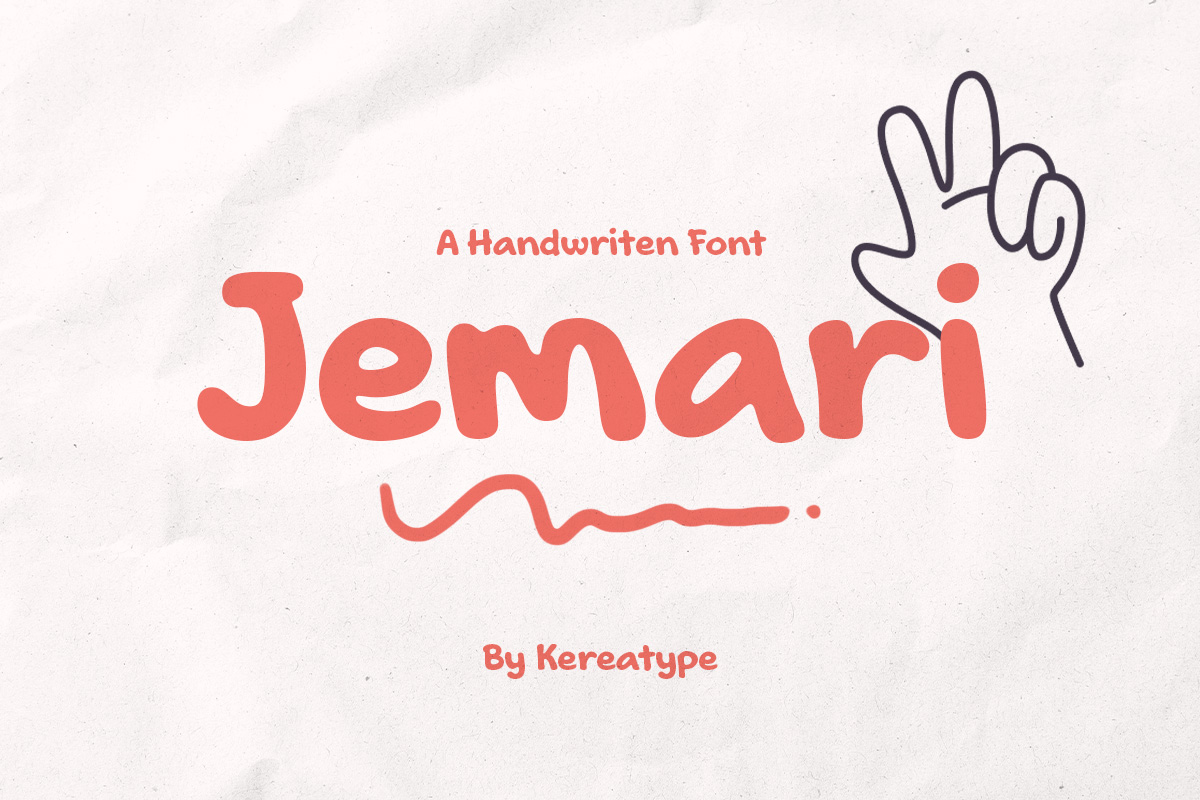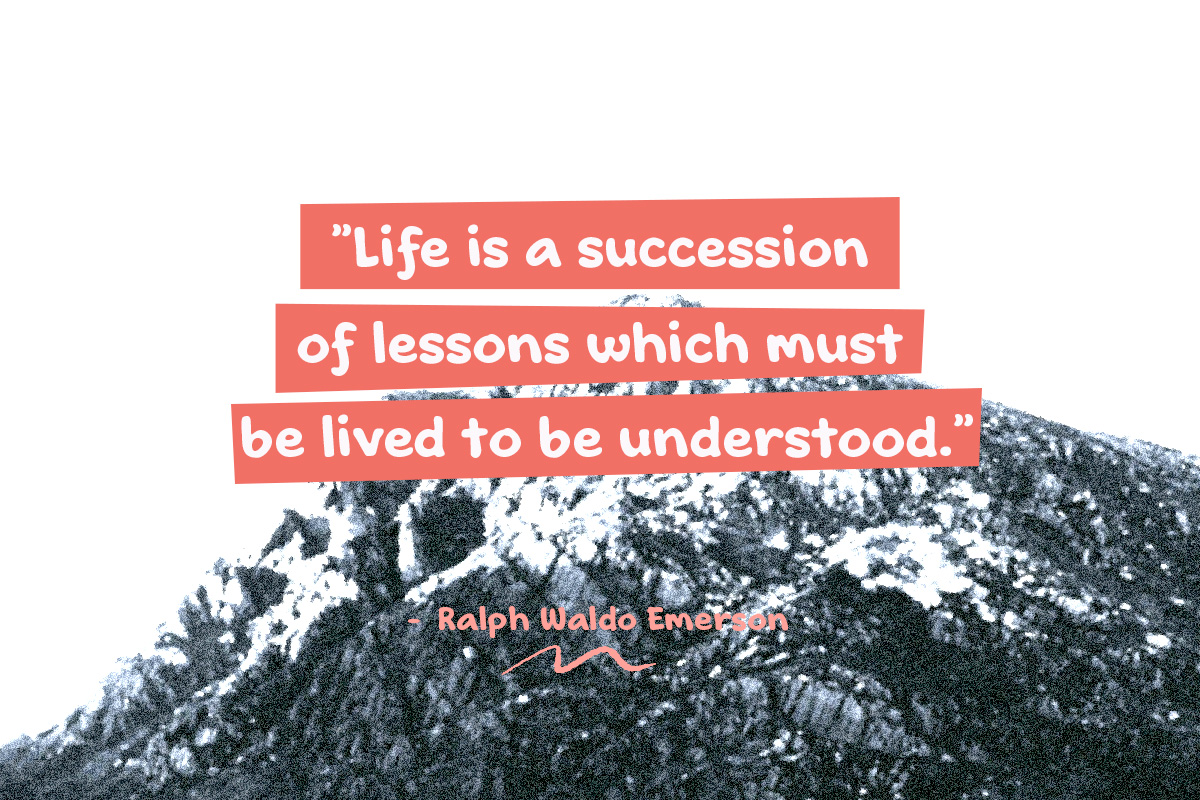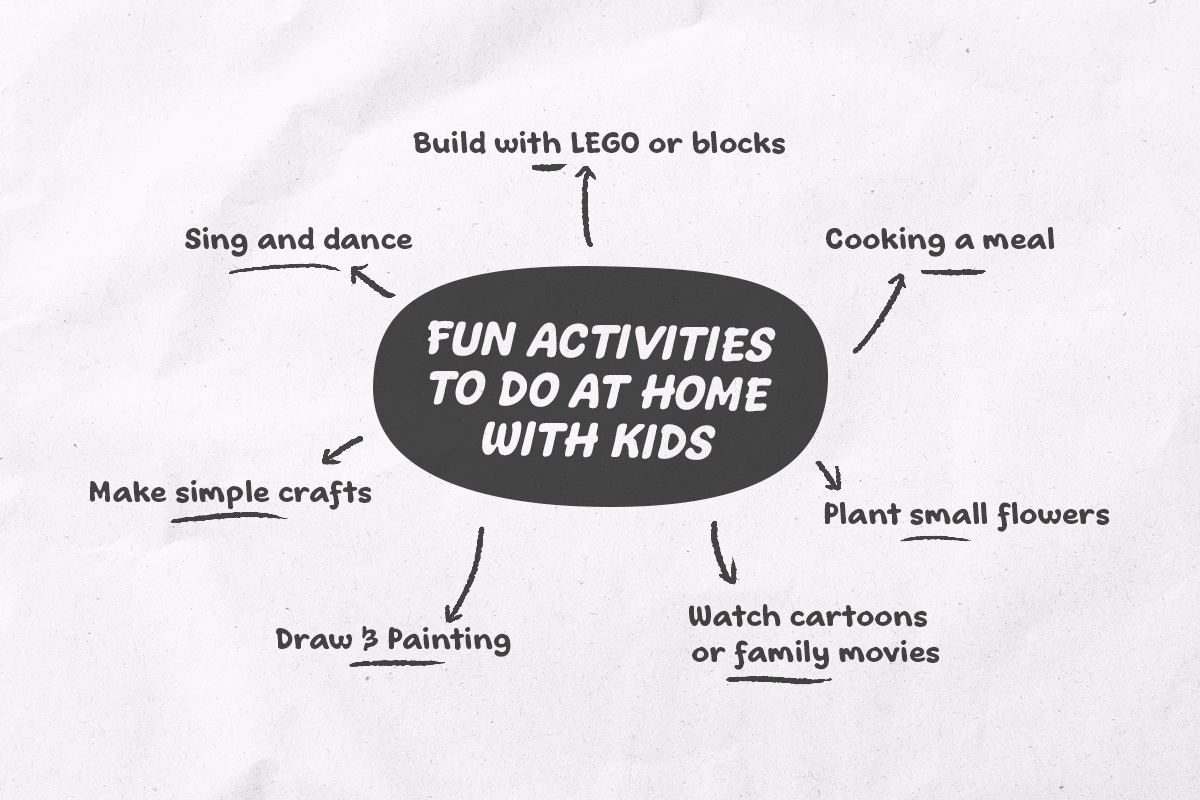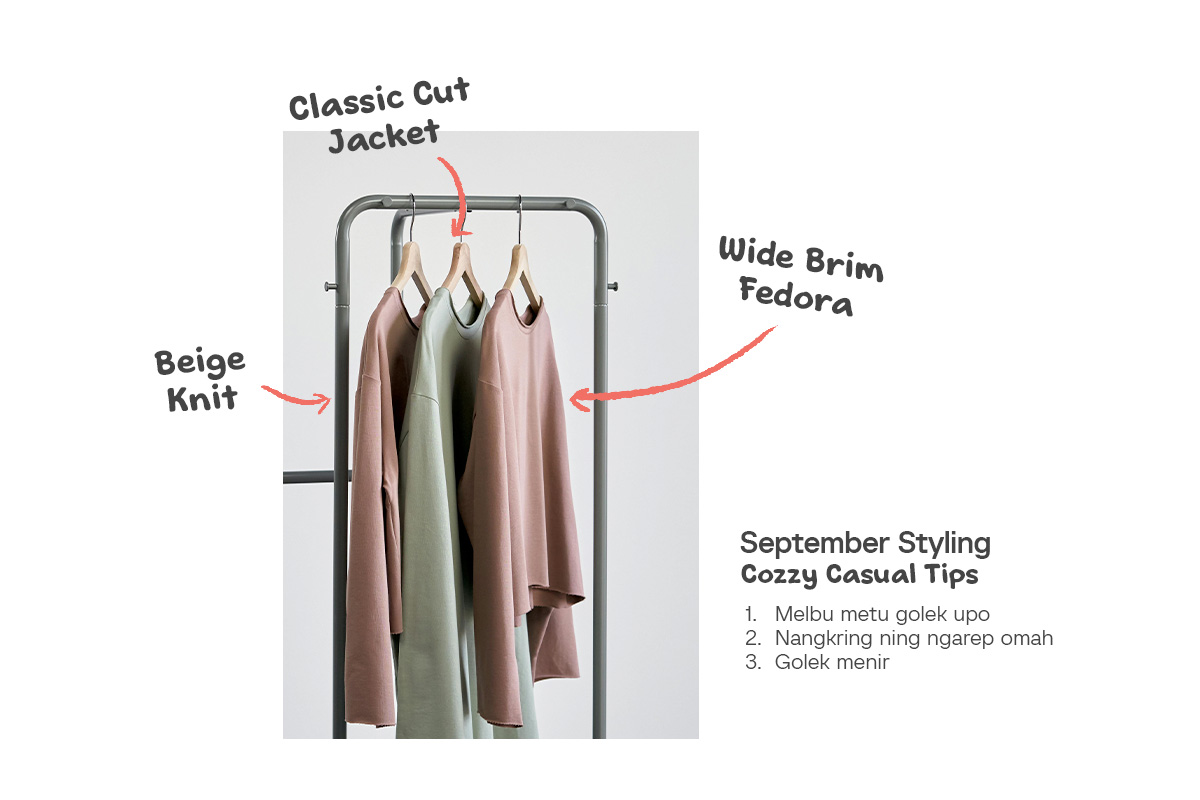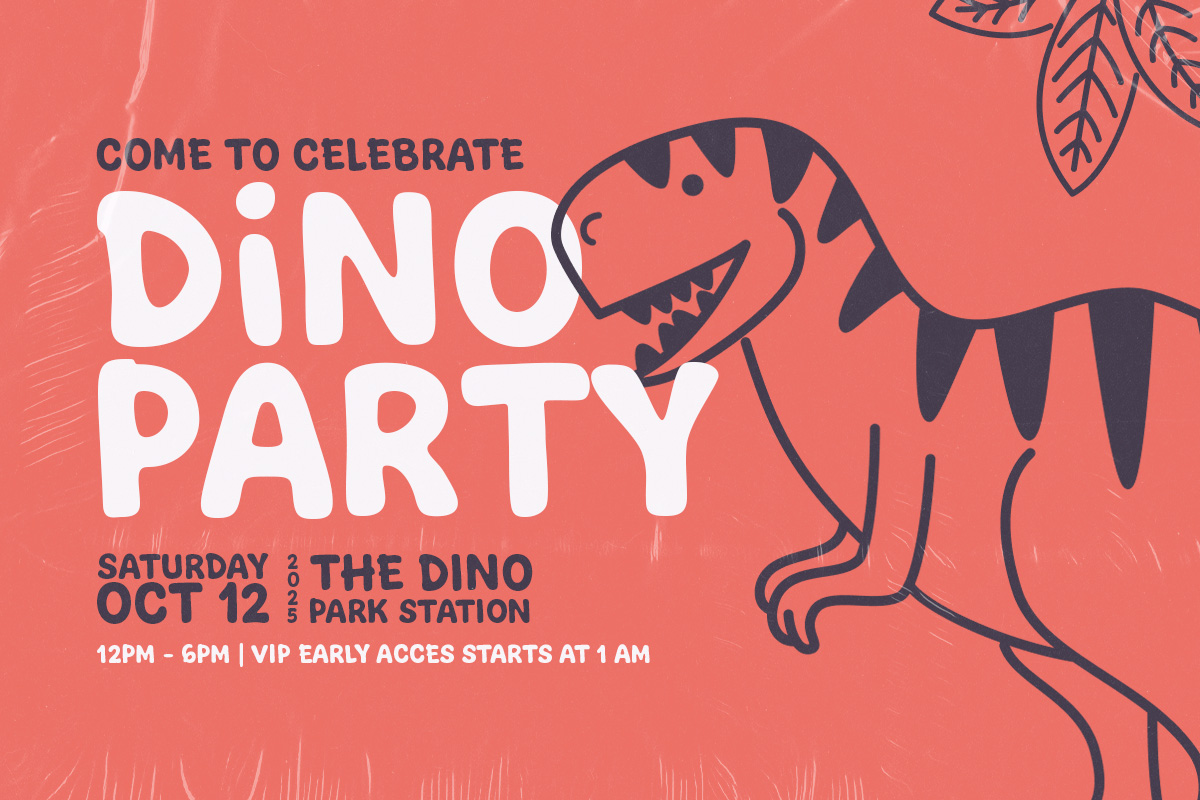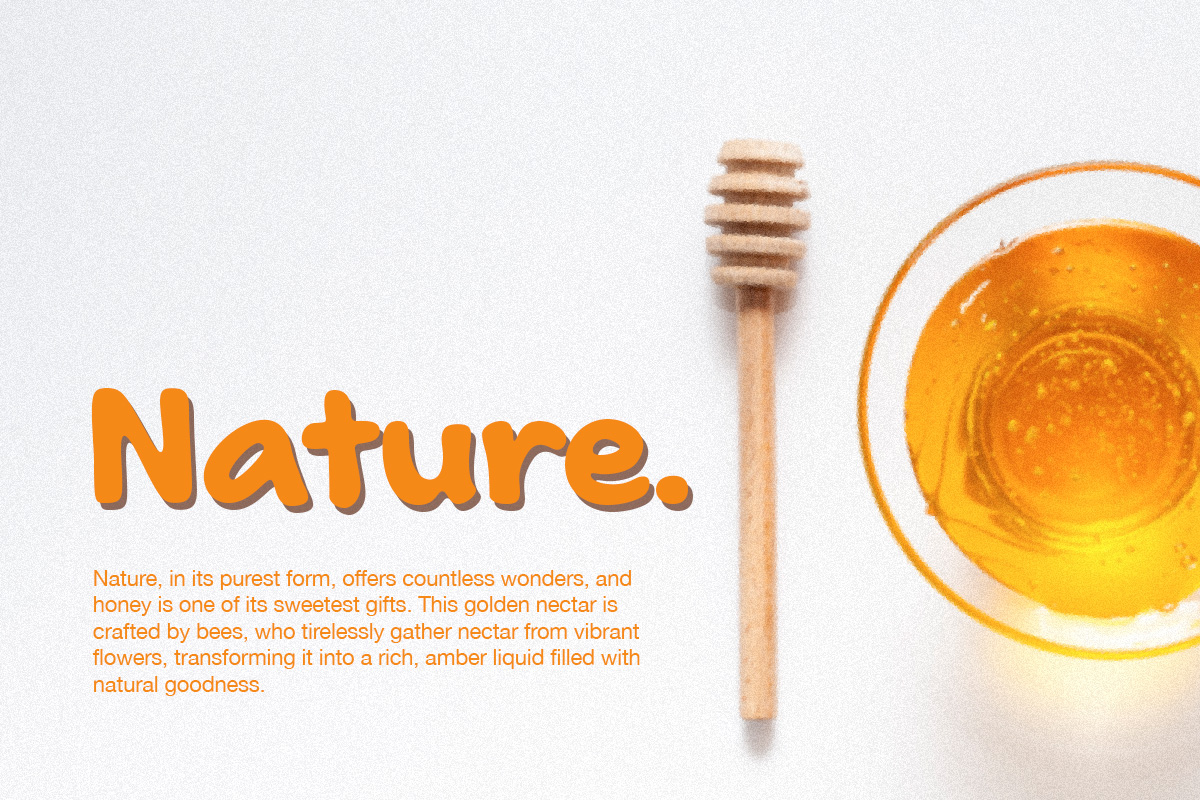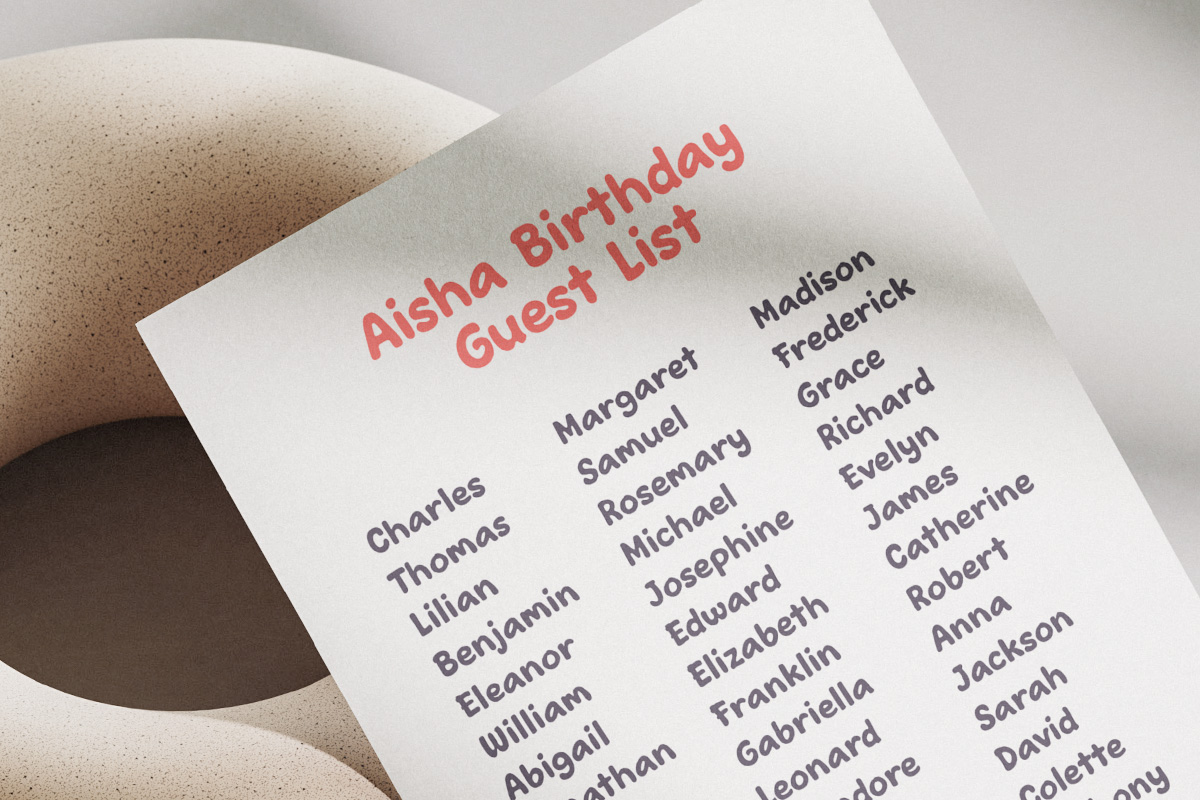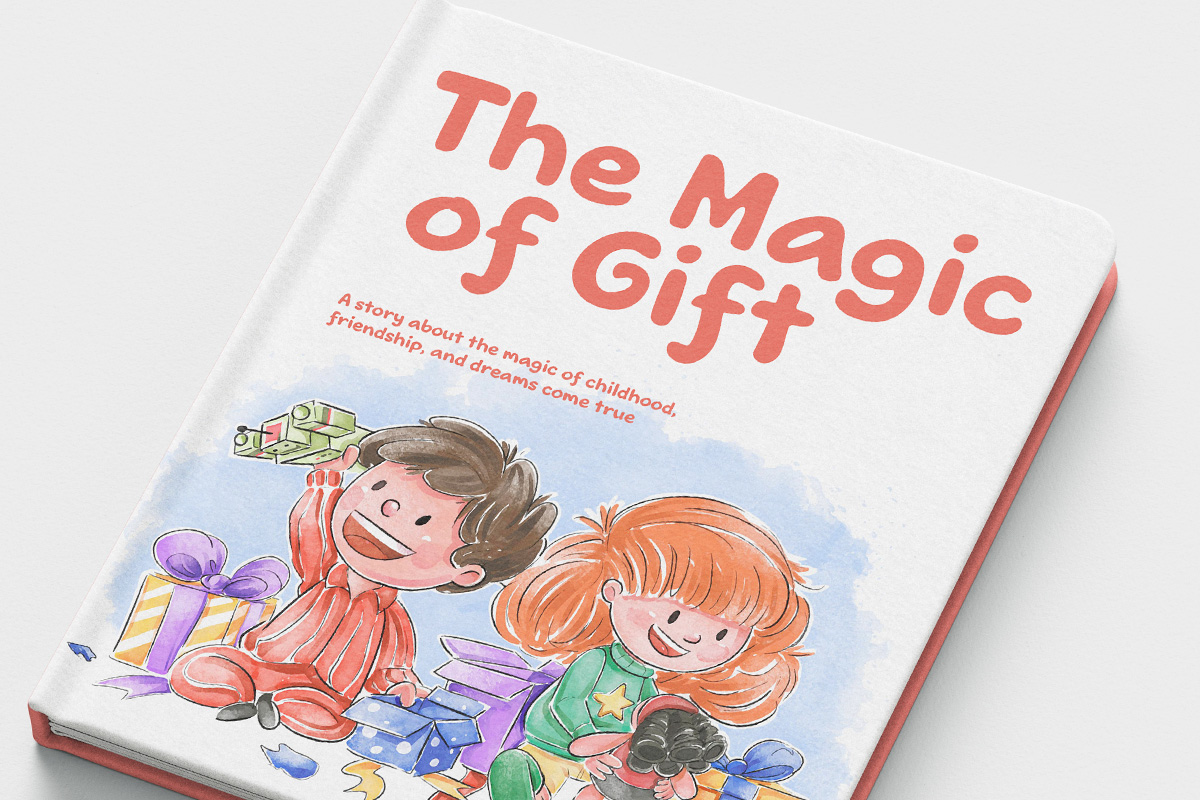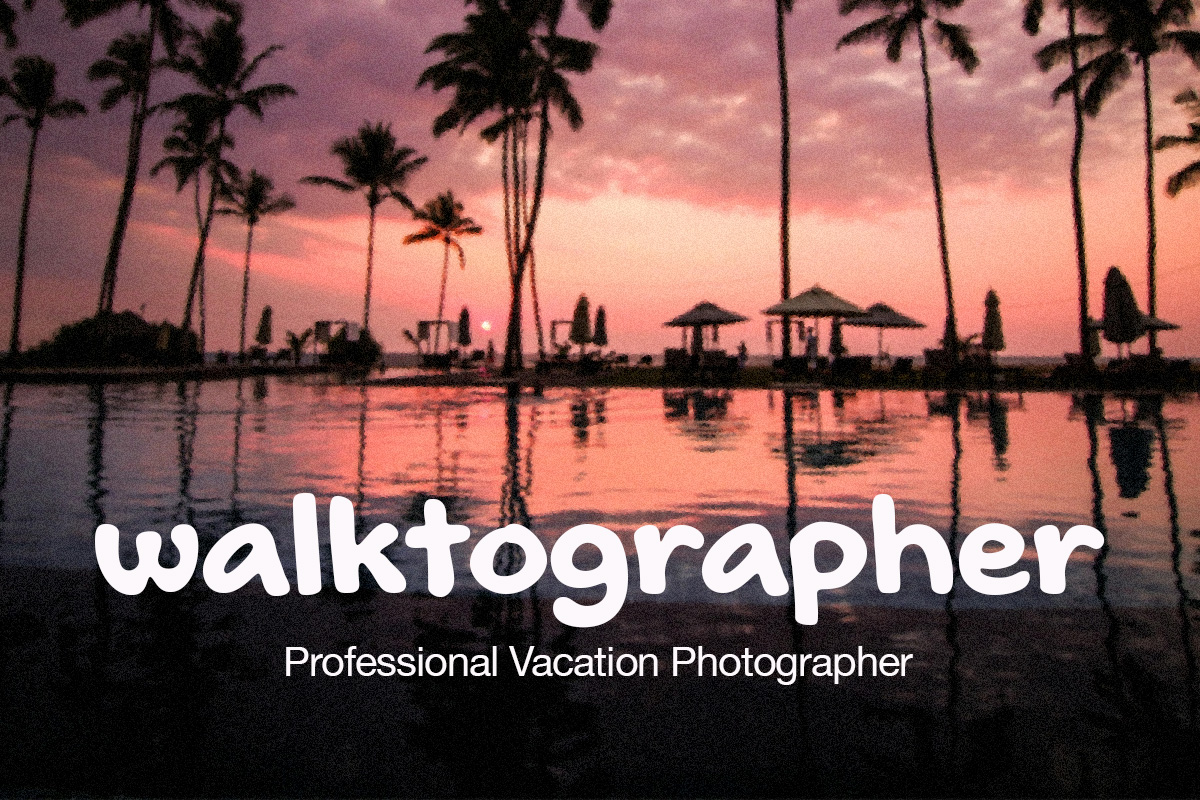
Jemari
A Playful Handwritten Font Capturing Authentic Warmth And Spontaneity For Joyful Branding, Children's Books, And Heartfelt Personal Projects.
Jemari
Playful Authentic Warm Handwritten Script
Jemari is a playful handwritten font that masterfully captures the warmth and spontaneity of authentic human handwriting. Inspired by the charming beauty of hand-drawn notes, it features smooth strokes and organic curves that radiate a friendly, welcoming energy. Whether you are designing for children’s storybooks, playful branding identities, or heartfelt greeting cards, Jemari delivers a genuine human touch and casual elegance to every project. Its joyful personality and approachable vibe ensure your message feels sincere and personal, making it the perfect choice for creators who value authenticity and youthful creativity.
Playful Authentic Warm Handwritten Script